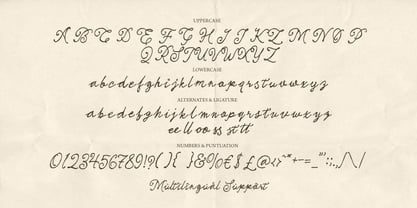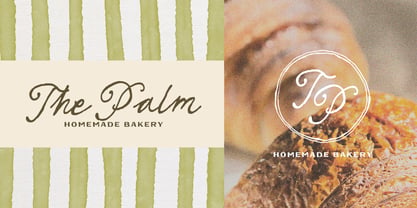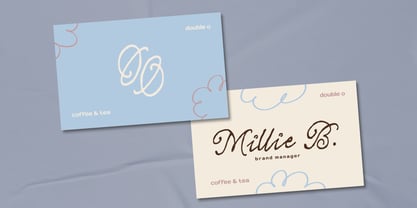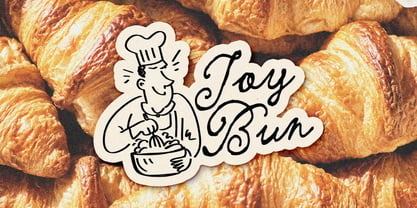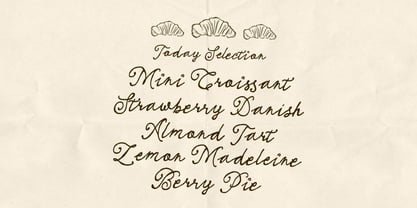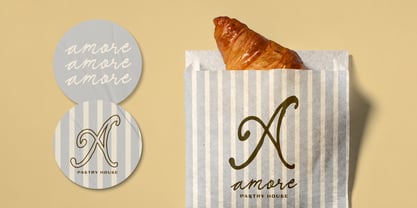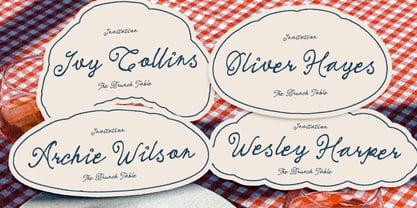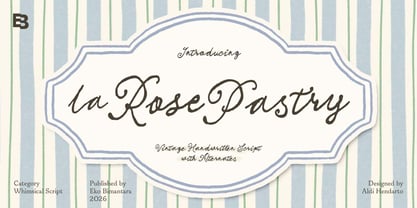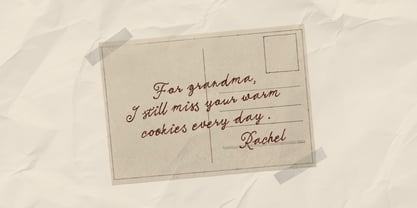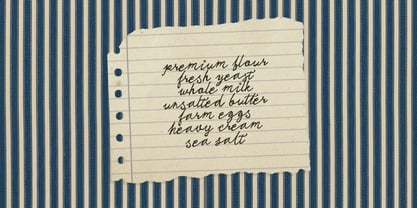
La Rose Pastry
by Eko Bimantara
The La Rose Pastry Font Family was designed by Eko Bimantara, Aldi Hendarto and published by Eko Bimantara. La Rose Pastry contains 1 styles. More about this family
La Rose Pastry is a graceful handwritten script inspired by the charm of vintage pâtisseries, romantic café signage, and timeless French packaging. With its flowing curves, delicate swashes, and naturally elegant rhythm, this typeface brings a warm handcrafted personality to every design while maintaining a refined professional feel. Perfect for bakery branding, café menus, product packaging, vintage stationery, editorial layouts, and feminine lifestyle projects, La Rose Pastry creates an inviting atmosphere filled with softness, nostalgia, and artisanal sophistication.
Designers: Eko Bimantara, Aldi Hendarto
Foundry: Eko Bimantara
Eko Bimantara is a type designer from Indonesia. Always has an intention to creating fonts that not only look great but also perform across a wide range of mediums and also across wide range of theme. The goal is to give designers the tools to make their projects that speaks a lot with various expression. Eko Bimantara’s fonts are featured in everything from corporate identities to street art posters, and have numerous ideas and concept ready to expand for fresh fonts for years further.